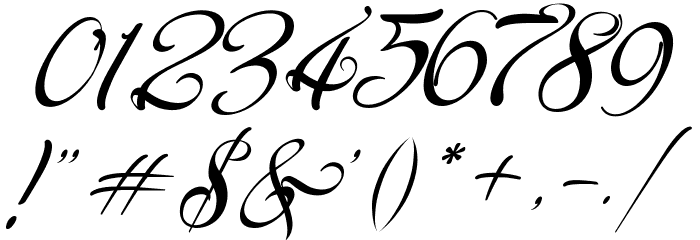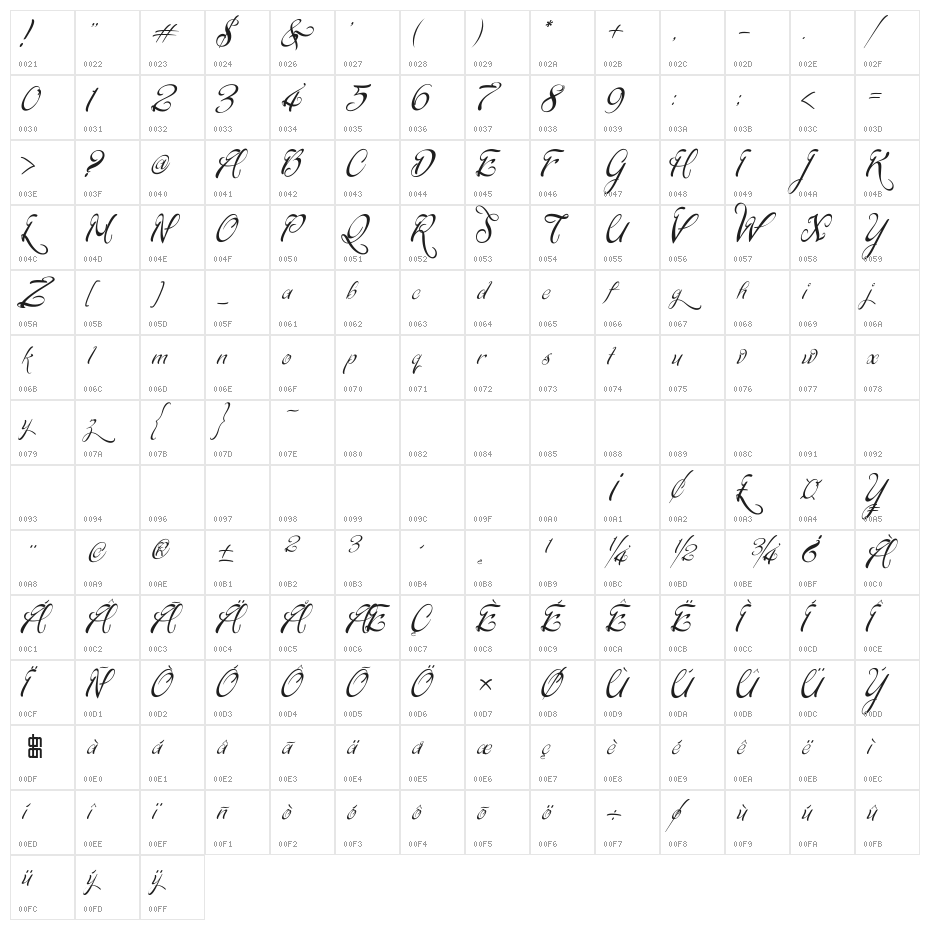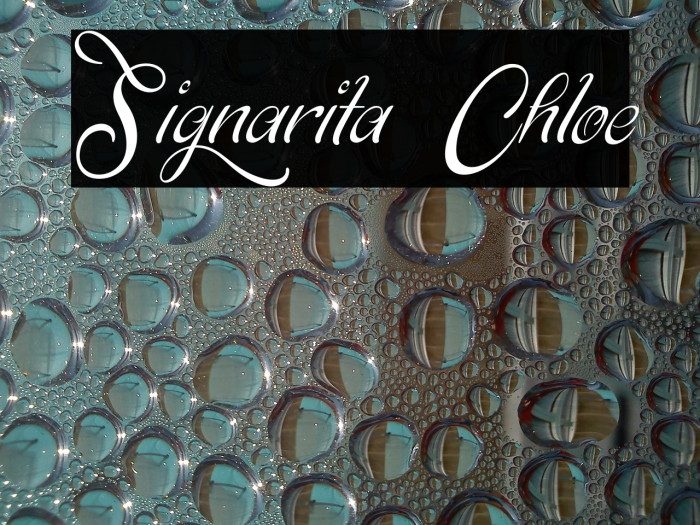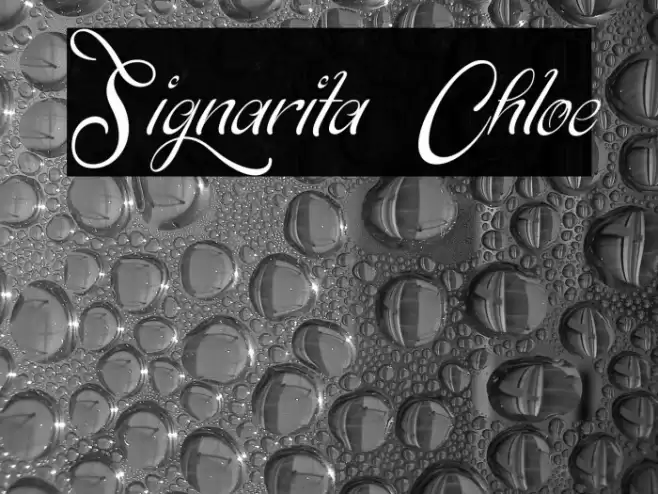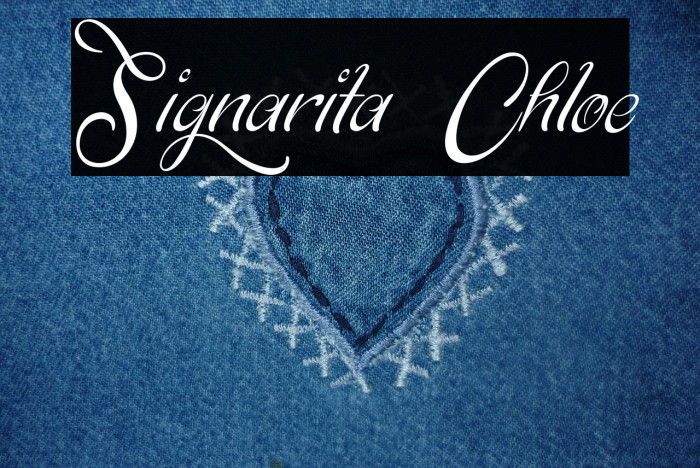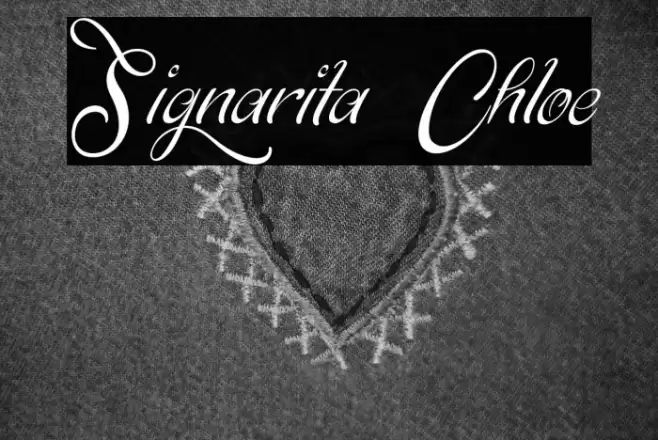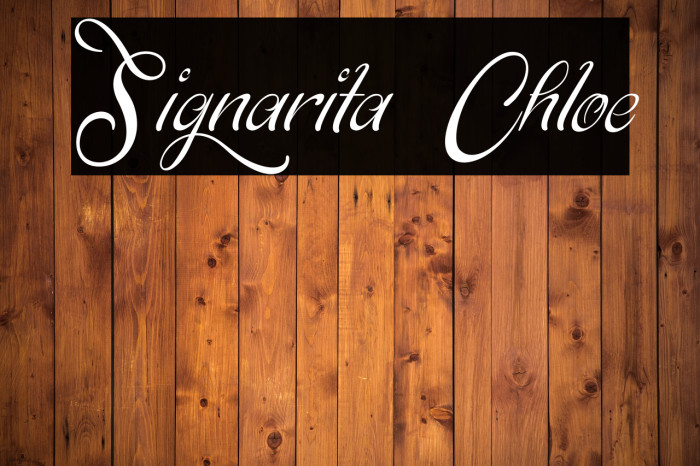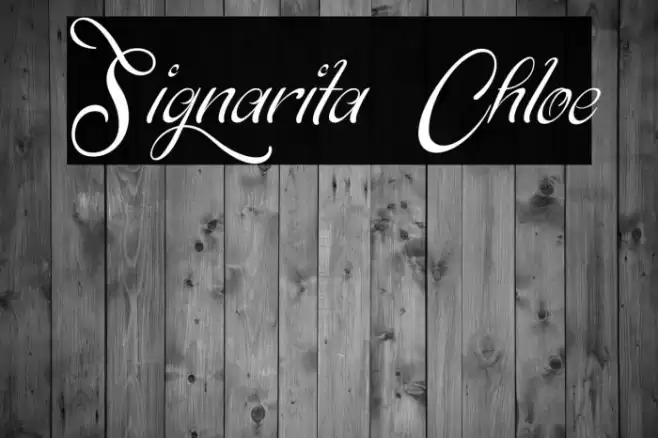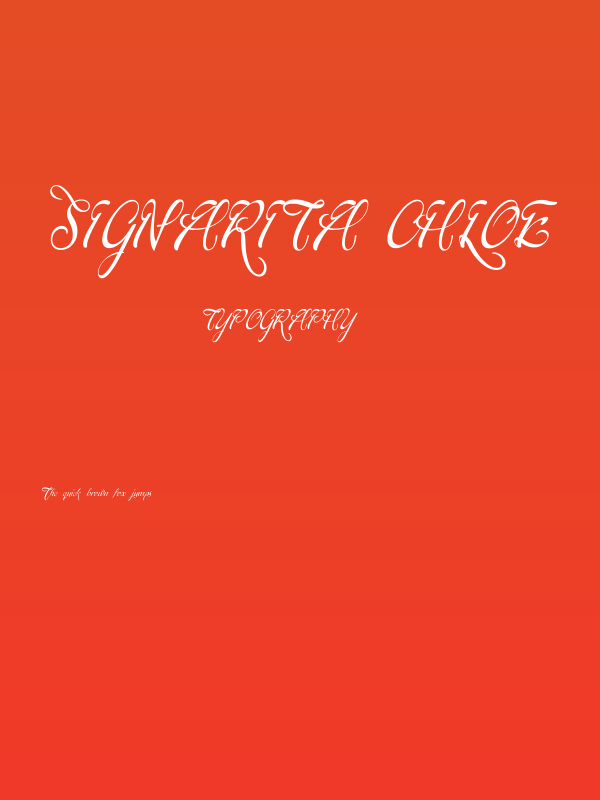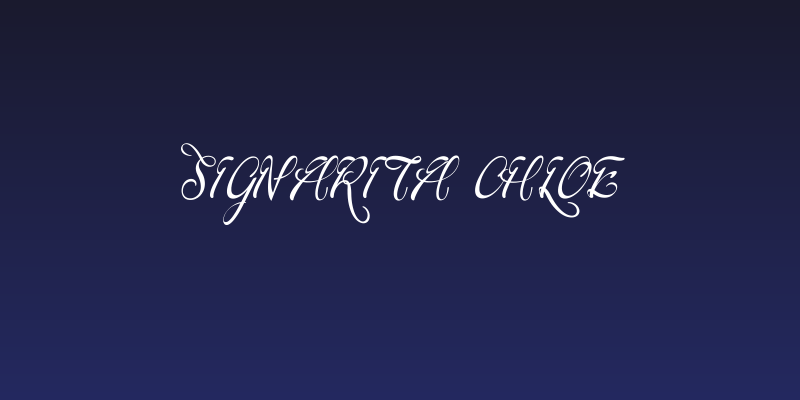
Signarita Chloe Font
Signarita Chloe Description
This elegant script font features flowing, cursive strokes that exude sophistication and grace. The uppercase letters are adorned with intricate flourishes, adding a touch of luxury and refinement. The lowercase letters maintain a consistent flow, enhancing readability while preserving the decorative style. Numbers and special characters are crafted with the same attention to detail, ensuring a cohesive look across all text elements. The font's design is reminiscent of classic calligraphy, making it ideal for projects that require a personal, handwritten touch.
| Use Case | Logos, Invitations, Decorative Headlines |
| Proposed Projects | Ideal for wedding invitations, elegant branding, personal stationery, and decorative headlines. |